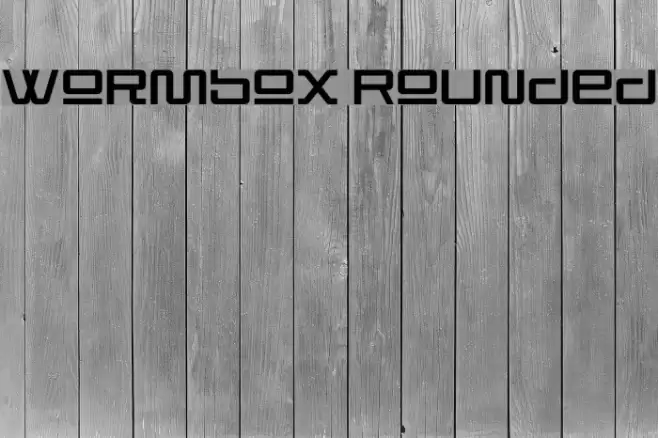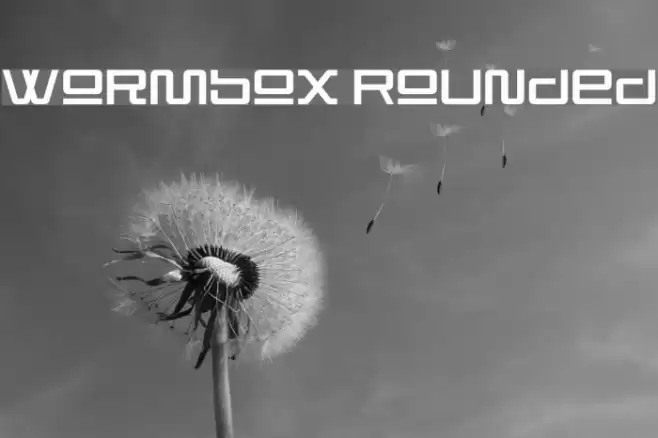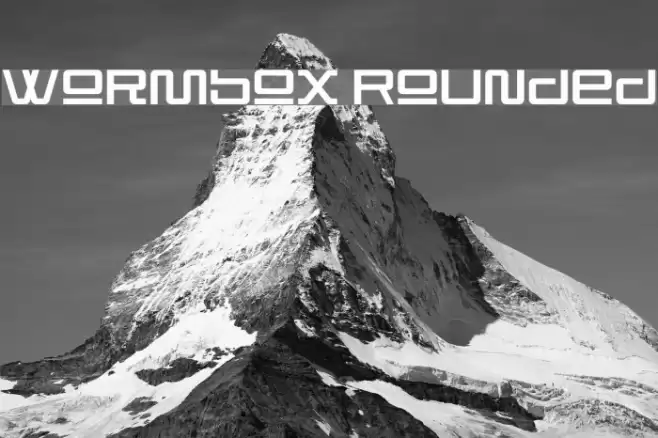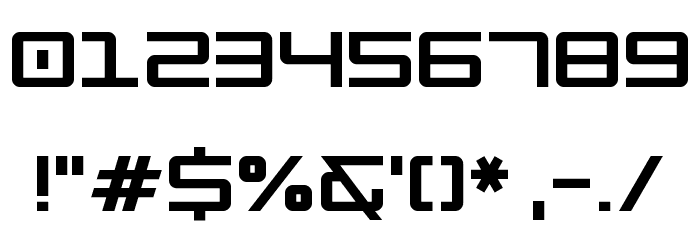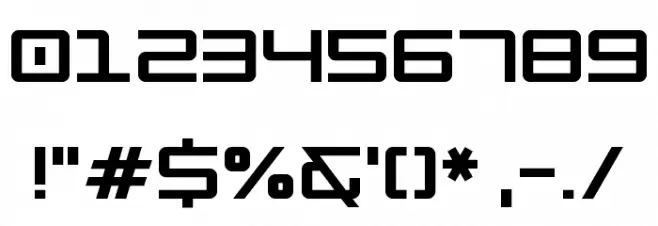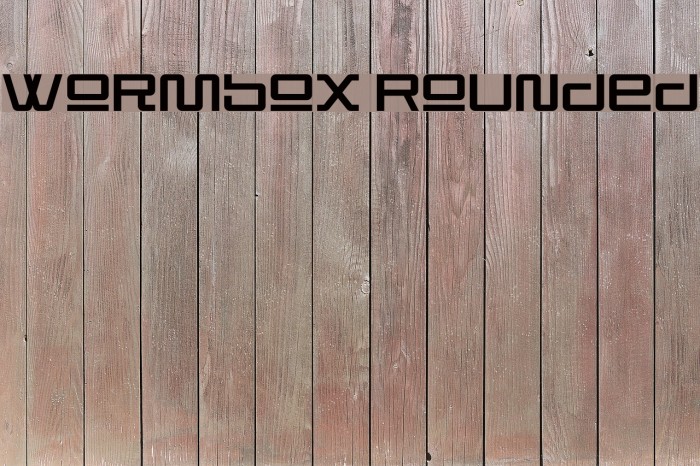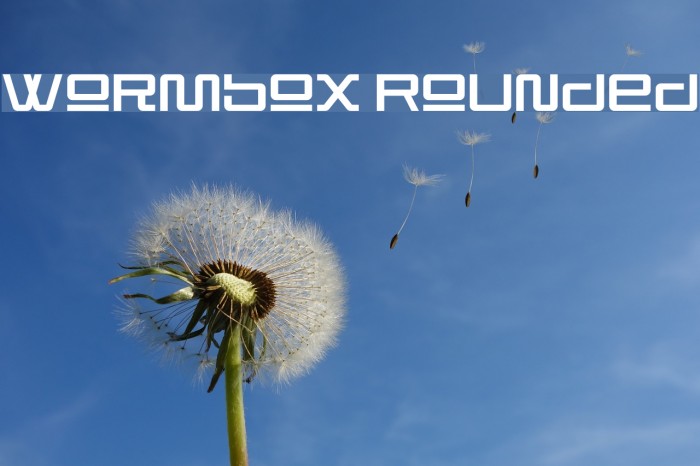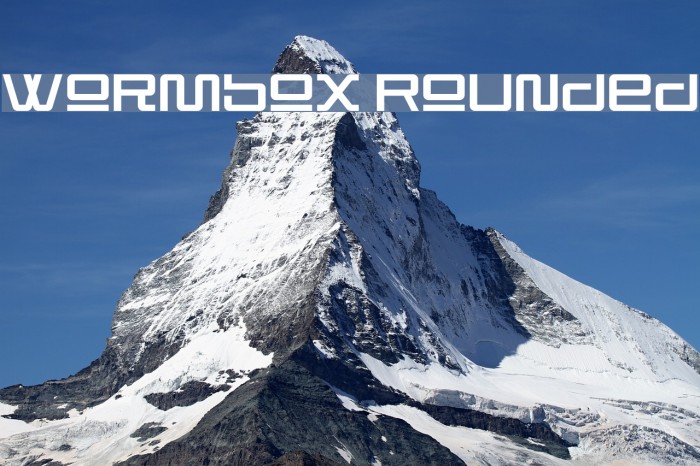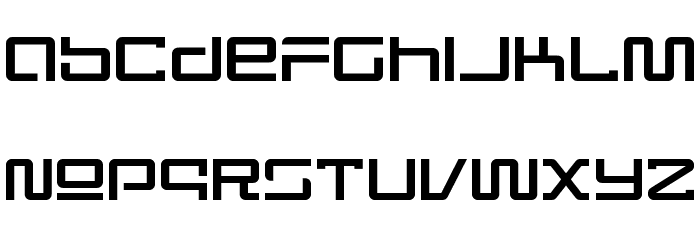
Wormbox Rounded Font
Wormbox Rounded Description
This font features a modern, geometric design with rounded edges that give it a soft, approachable feel. The characters are constructed with a consistent stroke width, contributing to a clean and uniform appearance. The uppercase and lowercase letters maintain a similar height, enhancing readability and creating a cohesive look. The numerals and special characters are designed to match the overall style, ensuring seamless integration in various contexts. This font's unique style makes it suitable for contemporary design projects.
A modern, geometric font with rounded edges and consistent stroke width from Futuristic fonts.
- Proposed Projects: Ideal for tech branding, digital interfaces, modern advertising, and futuristic design themes.
- Use Case: Headlines, Logos, Digital Interfaces